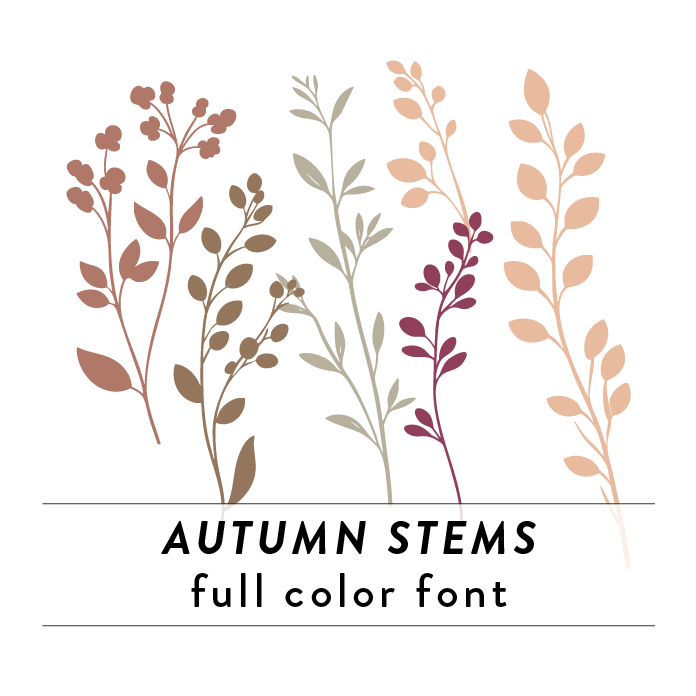
Autumn Branches Full Color Font features intricate tree branches and leaves in vibrant autumn hues. The design exudes a whimsical and seasonal charm, perfect for adding a touch of nature to fall-themed projects. Ideal for decorative purposes and adding a pop of color to designs or for Thanksgiving decor!